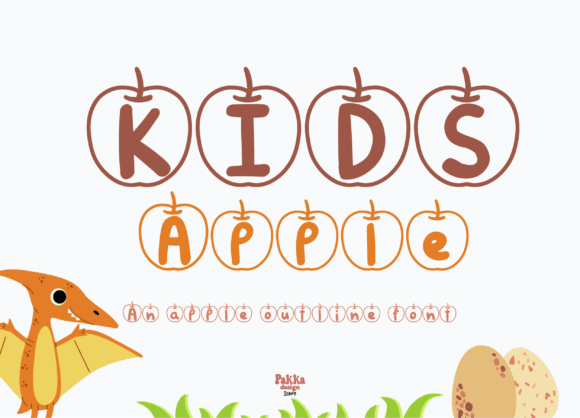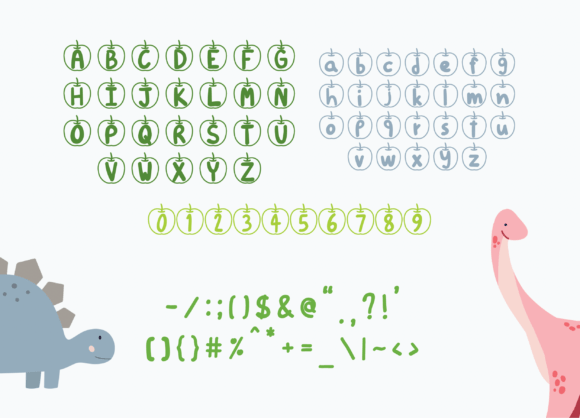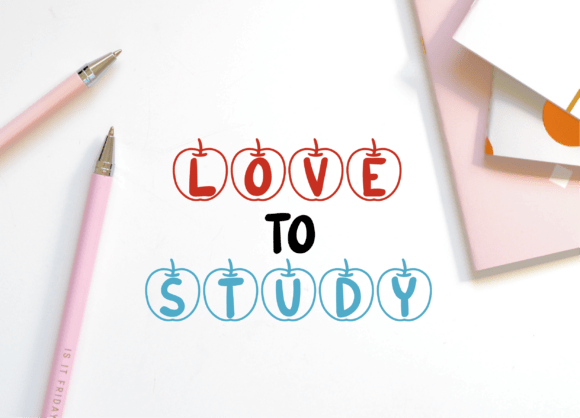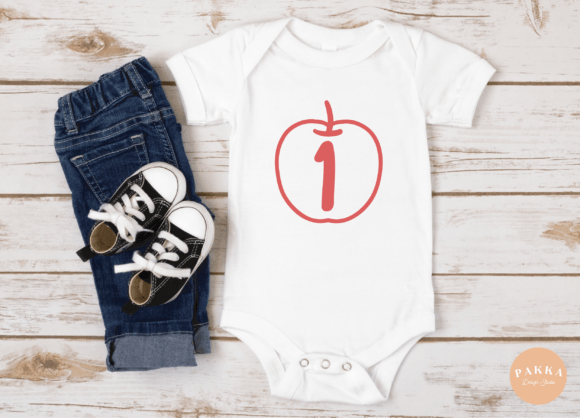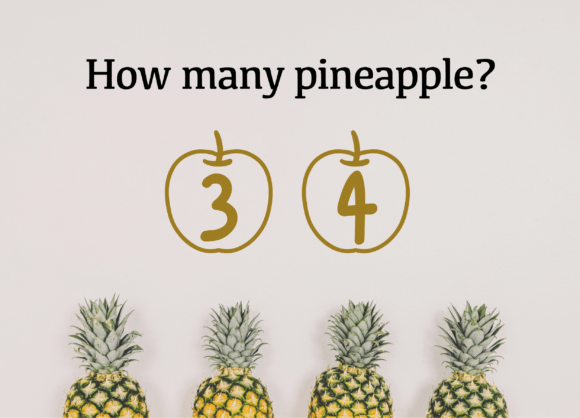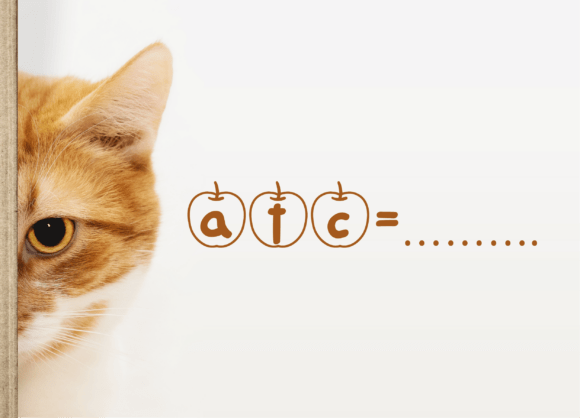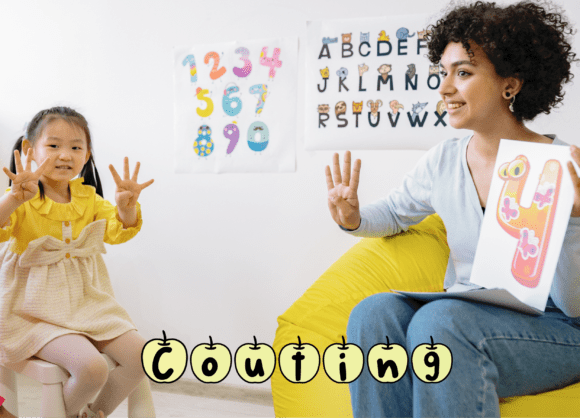
Unlock the Power of Creativity with Kids Apple Outline Font
Do you remember the first time you picked up a crayon and brought a blank piece of paper to life with vibrant colors and imagination? For many of us, that moment sparked a lifelong passion for creativity and self-expression. As designers, we’re constantly seeking ways to tap into that same sense of wonder and bring our ideas to life.
Enter the Kids Apple Outline Font, a playful and whimsical design that adds a touch of magic to any project. This charming font features alphabet letters nestled inside a delightful apple outline, perfect for adding a dash of creativity to t-shirts, crafts, worksheets, and more. Whether you’re a seasoned designer or just starting out, the Kids Apple Outline Font is a valuable tool in your creative arsenal, offering endless possibilities for bringing your ideas to life and making learning a fun and engaging experience.
Kids Apple Outline Font Key Features
- Font Style: Outline font with a playful, kid-friendly design
- Unique Character: The font features a unique, hand-drawn design with rounded edges and a subtle texture, giving it a friendly and approachable feel
Designer Review: Kids Apple Outline Font
At first glance, the Kids Apple Outline Font seems like a fun and playful addition to any design project. ✨ The font’s childlike charm is undeniably captivating, and it’s sure to bring a smile to the faces of both kids and adults alike.
Here are some of the things that work well with this font:
- ✨ The font’s rounded edges and soft lines make it perfect for creating a warm and inviting atmosphere.
- ✨ The Kids Apple Outline Font is highly customizable, allowing you to adjust the size, color, and style to suit your design needs.
- ✨ The font’s bold lines make it easy to read, even at smaller font sizes.
- ⚠️ The font may not be suitable for formal or professional designs, as its playful nature may come across as unprofessional.
- ⚠️ The font’s bold lines can make it difficult to read at very small font sizes.
- ⚠️ The font may not be compatible with all operating systems or devices.
Overall, the Kids Apple Outline Font is a fun and creative addition to any design project. While it may not be suitable for all types of designs, it’s perfect for creating a playful and engaging atmosphere. With a little creativity and experimentation, you can unlock the full potential of this font and create some truly amazing designs.
The Kids Apple Outline Font is perfect for creating fun and playful designs for kids. Some tips for getting the most out of the font include:
- Use the font in conjunction with bright and bold colors to create a playful and eye-catching design.